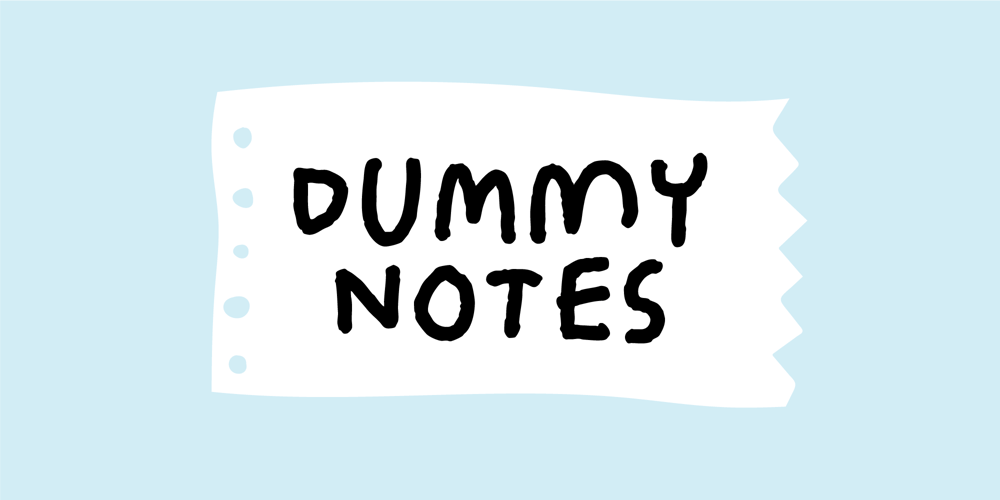
Dummy Notes
Dummy Notes font
Dummy Notes Font Family was designed by Jakob Fischer and published by PizzaDude.dk. Dummy Notes contains 2 styles and family package options. This is a notebook font, filled with uneven letters and inkblobs here and there. It is great for single words or headlines, but most powerful with massive amounts of text.I have added 7 different versions of each letter, and they automatically changes as you type, leaving your text dynamic and organic.